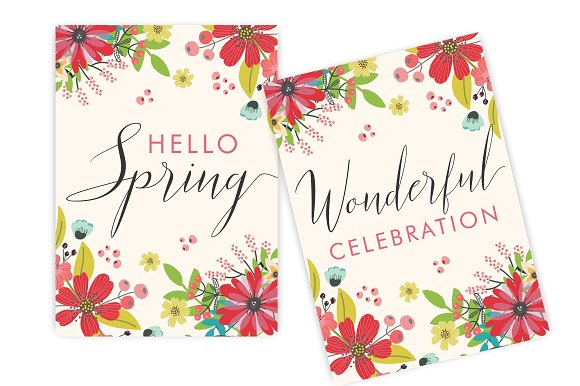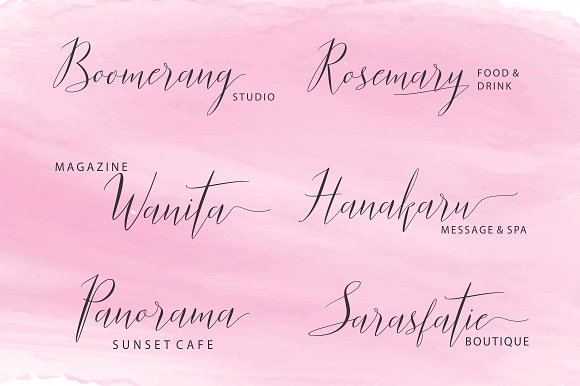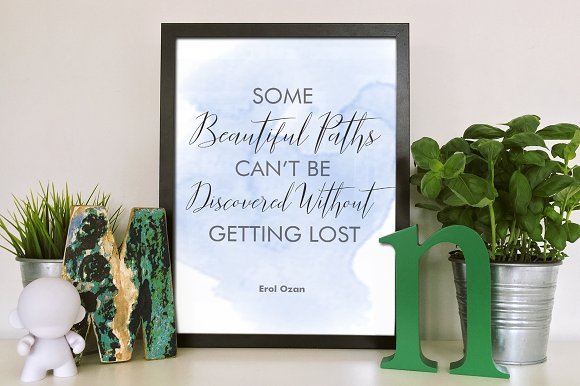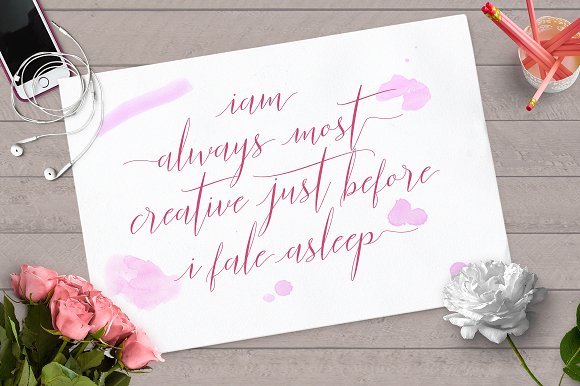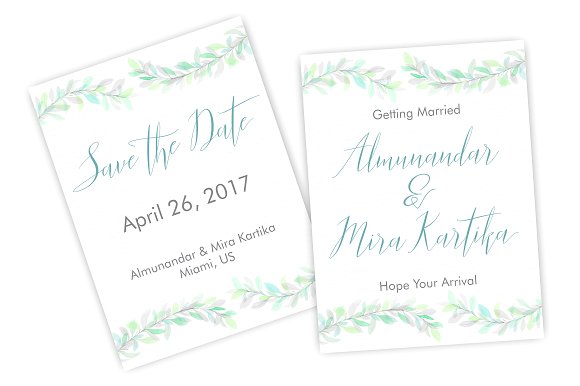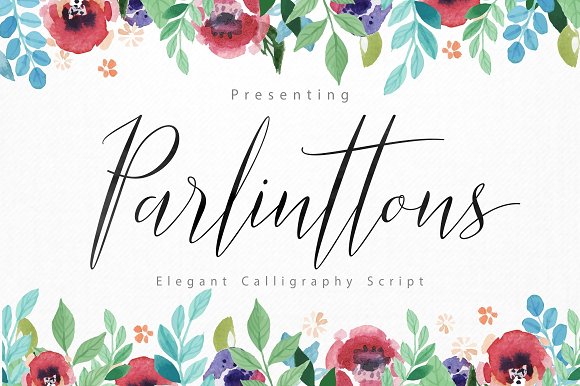
Parlinttons Script Font
Introducing Parlinttons Script is an elegant calligraphy script typeface.
Parlinttons Script can be used to for market design developed at this time, this font has a model Trendy, natural and gentle. is suitable for use in such design style as watercolor, minimalist, flat, modern design, etc. With the combination and some color, you can easily create something exciting and look beautiful for your design.